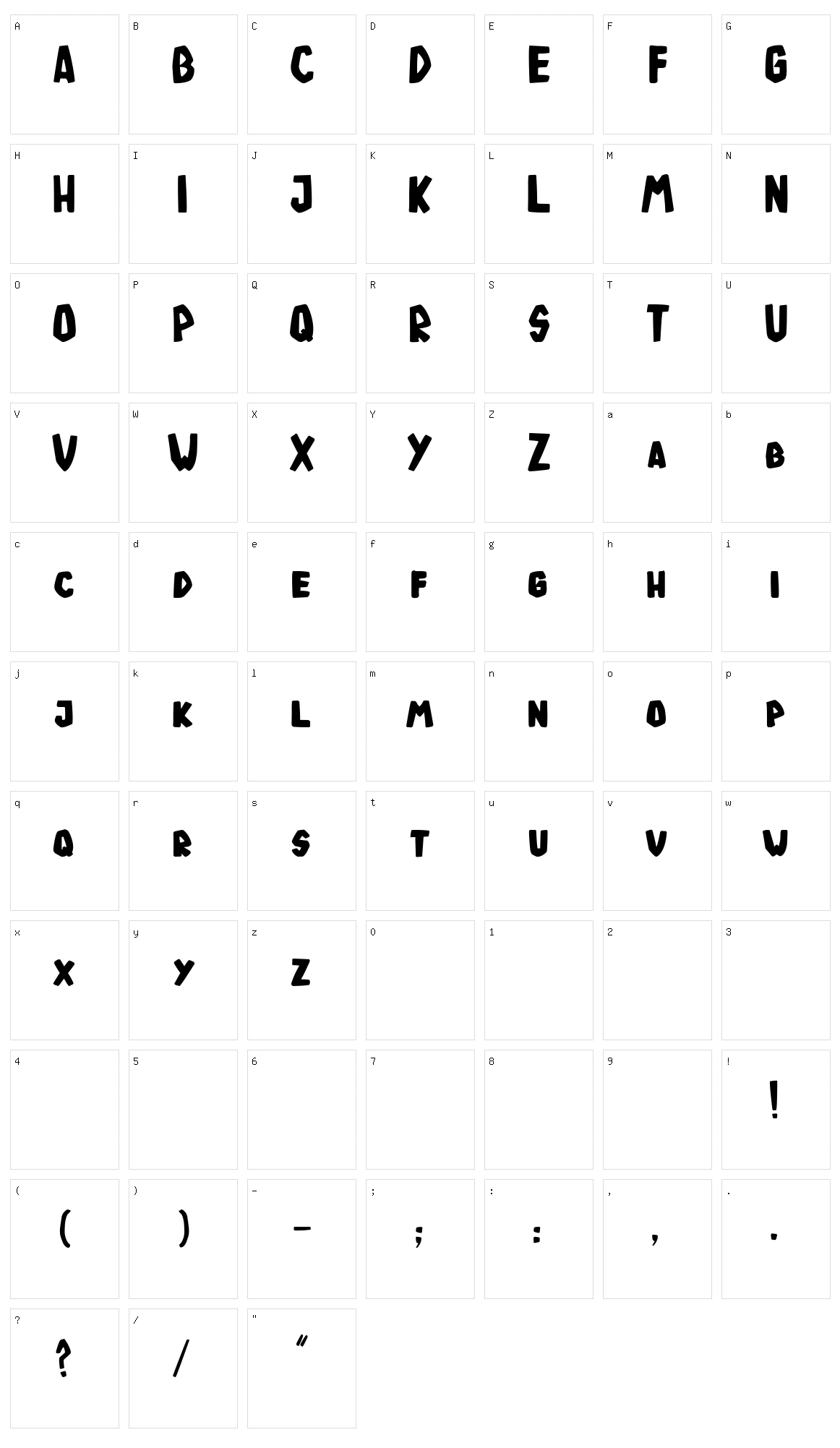
The free font Tode Ja Oigus is carefully designed by Andres Aarik, showcasing a thoughtful balance of creativity and usability and falls under the Retro font style. When you download the ZIP file, it contains only 18.72 KB of font files, making it lightweight and quick to download. Please review the license details below to understand permitted usage and distribution rights. If license information is not available, we recommend using this font for personal projects only or contacting the author directly for commercial usage permissions.